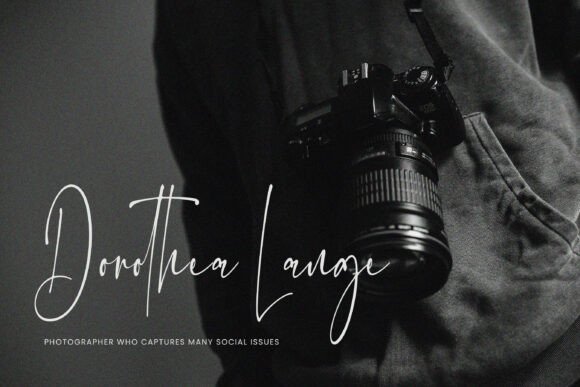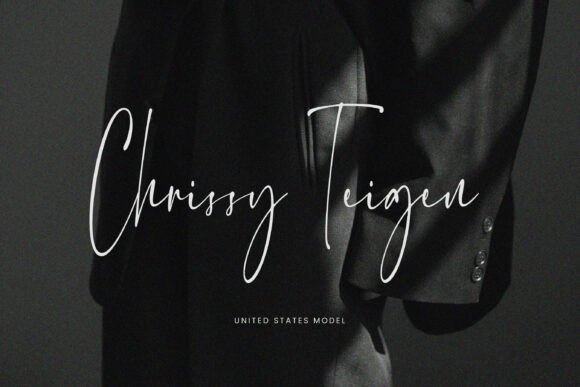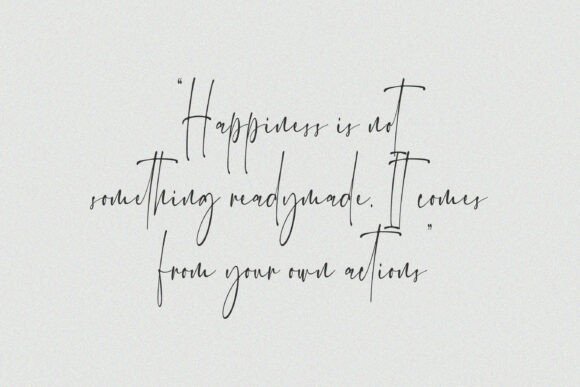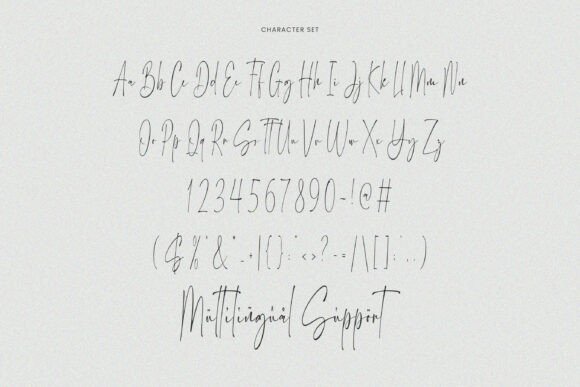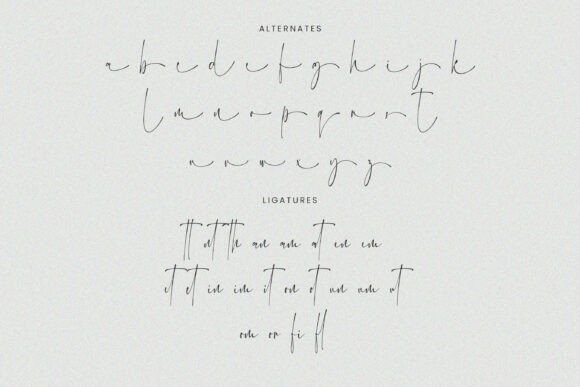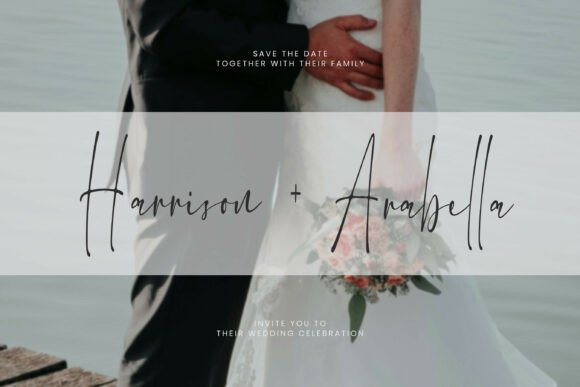
Introducing Charlie Finley Font: The Epitome of Effortless Elegance and Modern Sophistication
In the realm of typography, few fonts manage to strike a balance between elegance and modernity. Charlie Finley Font is one such remarkable typeface that embodies the essence of effortless sophistication and contemporary charm. This handwritten script font has been meticulously crafted to infuse a sense of authenticity and warmth into every word, making it an ideal choice for designers and crafters seeking to elevate their branding, invitations, and editorial designs.
The Characteristics of Charlie Finley Font
Charlie Finley Font boasts a distinctive handwritten quality that sets it apart from more conventional typefaces. Its graceful strokes and natural flow lend a sense of organic elegance to any text, evoking a feeling of warmth and approachability. This font’s modern sophistication ensures that it remains versatile and adaptable, suitable for a wide range of design applications.
Applications of Charlie Finley Font
The versatility of Charlie Finley Font makes it an excellent choice for various design projects. Here are some of the key areas where this font truly shines:
• Branding: Charlie Finley Font’s unique blend of elegance and modernity makes it perfect for branding projects. It can help create a distinctive identity for businesses, setting them apart from competitors.
• Invitations: Whether it’s a wedding invitation, a birthday party, or any other special occasion, Charlie Finley Font adds a touch of sophistication and warmth, making the invitation feel more personal and exclusive.
• Editorial Designs: For editorial projects such as magazines, blogs, or books, Charlie Finley Font can add a level of refinement and elegance, enhancing the overall reading experience.
Why Choose Charlie Finley Font?
There are several reasons why designers and crafters might prefer Charlie Finley Font over other typefaces:
• Authenticity: The handwritten nature of Charlie Finley Font gives it an authentic, personal feel that resonates with audiences.
• Versatility: Its modern sophistication ensures that it can be used across a variety of design contexts, from digital platforms to print materials.
• Elegance: The font’s graceful strokes and natural flow bring a level of elegance to any text, making it suitable for high-end branding and editorial projects.
Tips for Using Charlie Finley Font Effectively
To maximize the impact of Charlie Finley Font in your designs, consider the following tips:
• Pair it with Neutral Fonts: When using Charlie Finley Font alongside other typefaces, opt for neutral fonts that won’t compete with its elegance.
• Adjust Letter Spacing: Experiment with letter spacing to enhance the font’s natural flow and readability.
• Consider Font Size: Charlie Finley Font is versatile, but it works best at sizes that allow its graceful strokes to shine.
Charlie Finley Font stands out as a remarkable typeface that beautifully balances effortless elegance with modern sophistication. Its unique characteristics make it an excellent choice for a wide range of design projects, from branding and invitations to editorial designs. By incorporating Charlie Finley Font into your typography arsenal, you can add a touch of authenticity, warmth, and refinement to your work, engaging your audience and elevating your designs to new heights.
Whether you’re a designer looking to create stunning visuals or a crafter seeking the perfect font for your project, Charlie Finley Font is sure to inspire and enhance your creative endeavors.